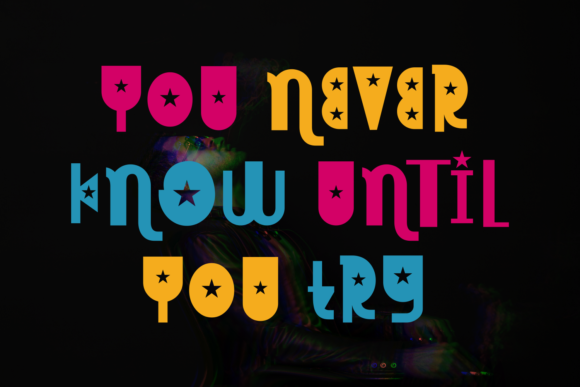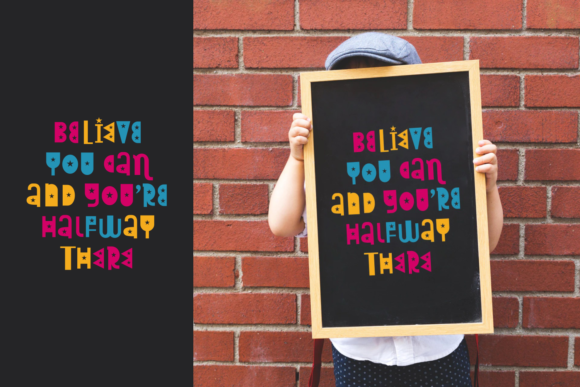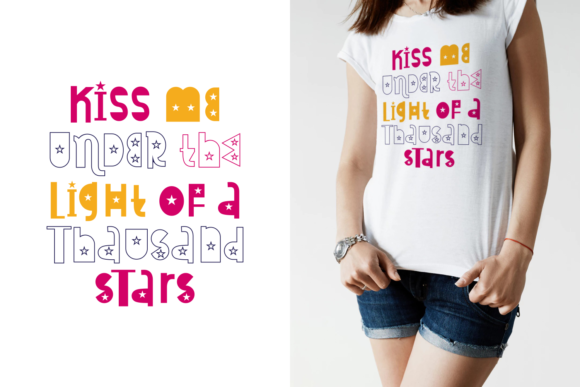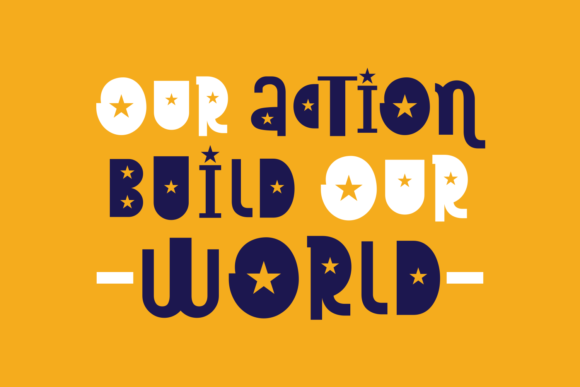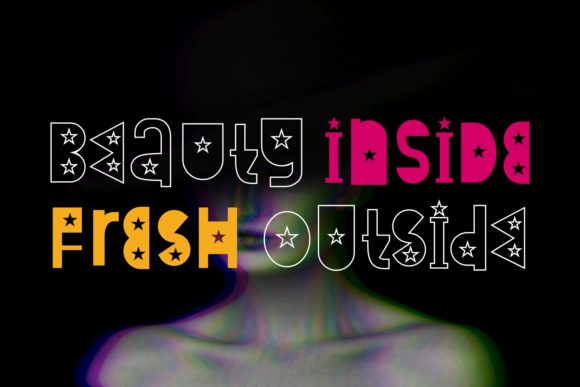
The Ultimate Design Companion: Attracted Tuesday Font
Have you ever been stuck in a design rut, staring blankly at your computer screen, desperately searching for that perfect font to bring your vision to life? We’ve all been there. It’s like trying to find the missing puzzle piece – you know it’s out there, but where?
That’s where the Attracted Tuesday Font comes in – a display font that’s as fun as it is functional. With its playful characters and versatility, this font is the ultimate design companion. Whether you’re a seasoned pro or just starting out, the Attracted Tuesday Font is sure to add a unique touch to your designs.
Attracted Tuesday Font Key Features
- Unique Characteristics: Attracted Tuesday Font features a unique blend of elegant and playful letterforms, making it perfect for designers who want to add a touch of sophistication and whimsy to their work.
- Font Style: The font comes in a single style, but its unique design elements make it suitable for use in a variety of contexts, from formal invitations to casual social media graphics.
Attracted Tuesday Font Review
Overall, I have mixed feelings about the Attracted Tuesday Font. While it’s a unique and playful font, it may not be the best choice for every project.
- The font’s whimsical and quirky feel makes it perfect for creative or humorous content.
- The varying line widths add a touch of personality and visual interest to text.
- The font’s sans-serif design makes it relatively easy to read, even at smaller font sizes.
- The font may not be suitable for formal or professional projects due to its playful and informal feel.
- The varying line widths can sometimes make text appear uneven or difficult to read at certain font sizes.
- The font lacks a clear or distinct style, making it difficult to recognize or distinguish from other fonts.
The Attracted Tuesday Font is a fun and quirky addition to any project, but it may not be the best choice for every situation. If you’re looking for a unique and playful font for a creative or humorous project, this font may be worth considering. However, for more formal or professional projects, you may want to explore other options.
Tips for Getting the Most Out of Attracted Tuesday Font
For the best results, use Attracted Tuesday Font in bold or italic styles to add emphasis to your text.
Attracted Tuesday Font is ideal for use in social media graphics, blog posts, and marketing materials.
It’s also a great choice for creating eye-catching titles and headings in presentations and documents.